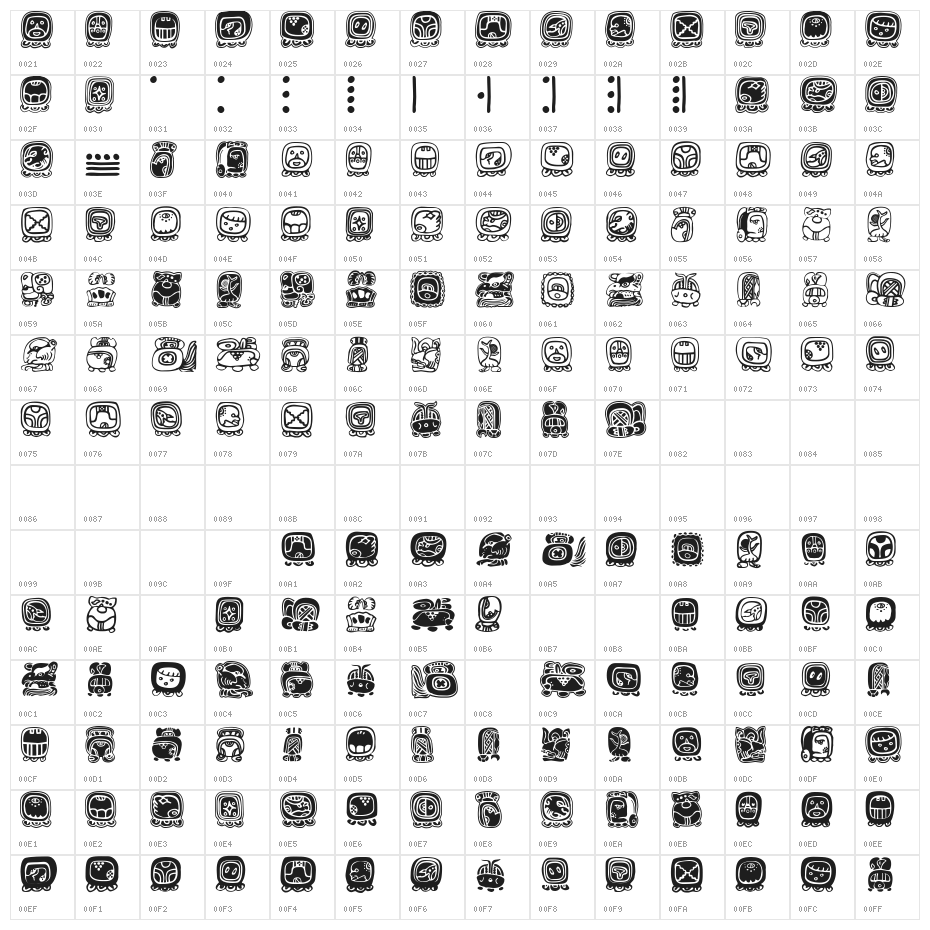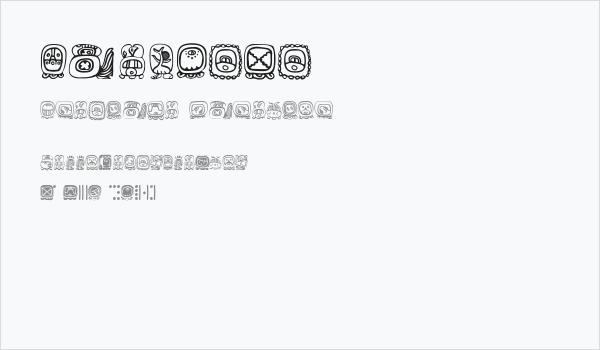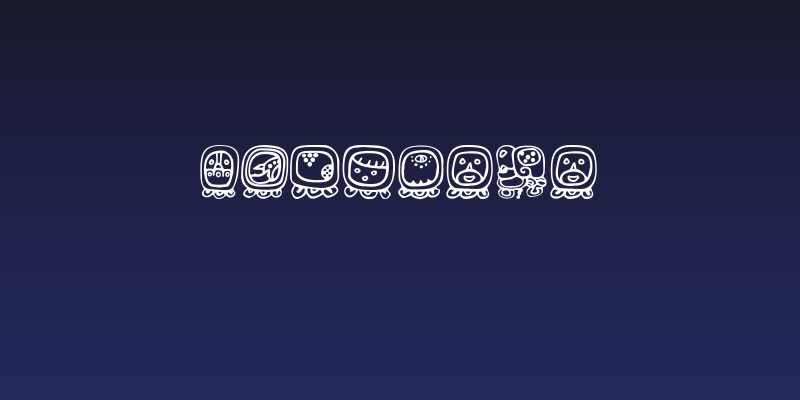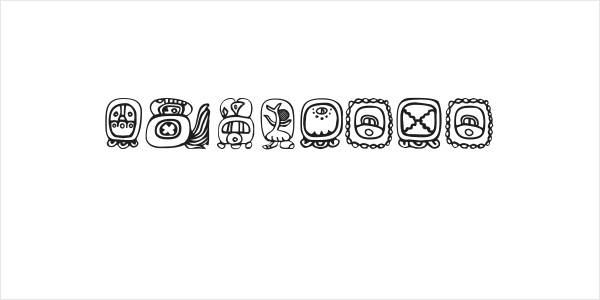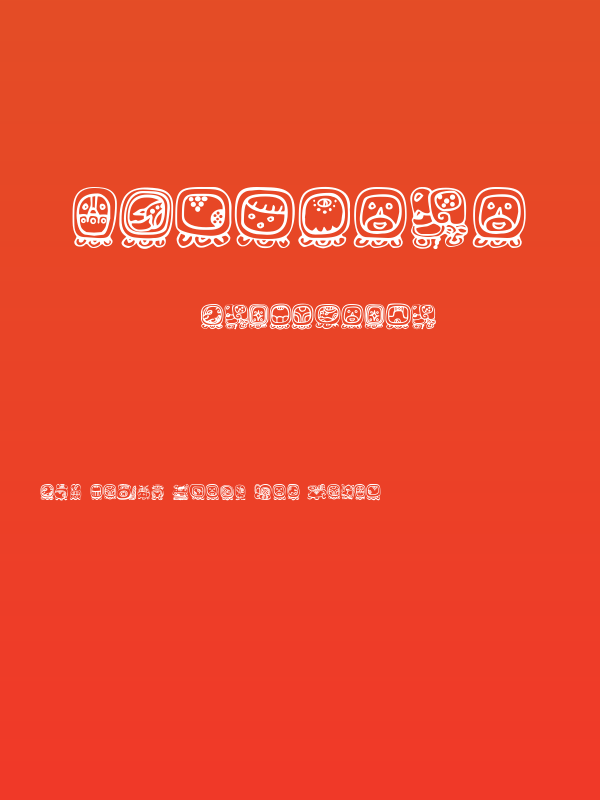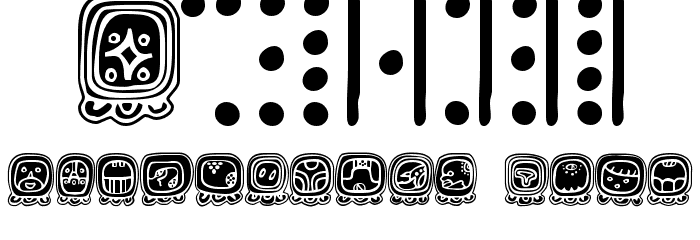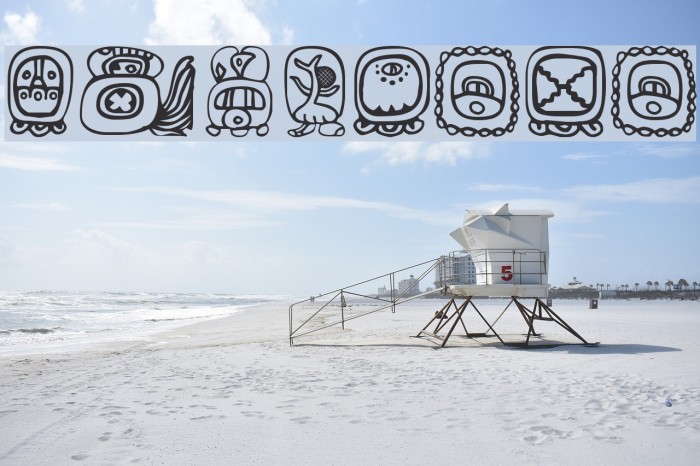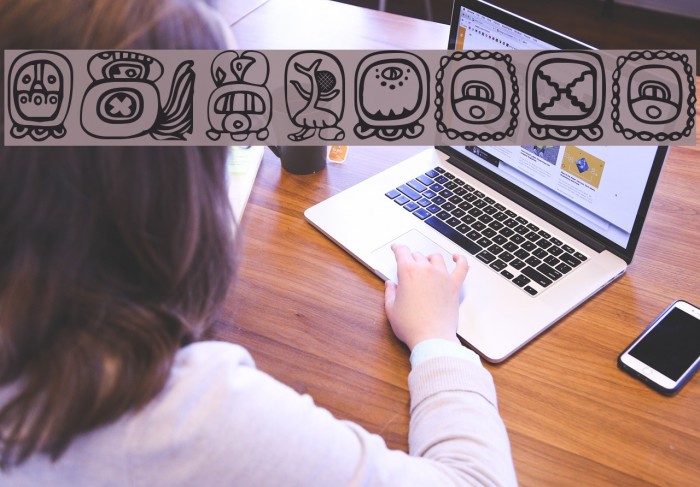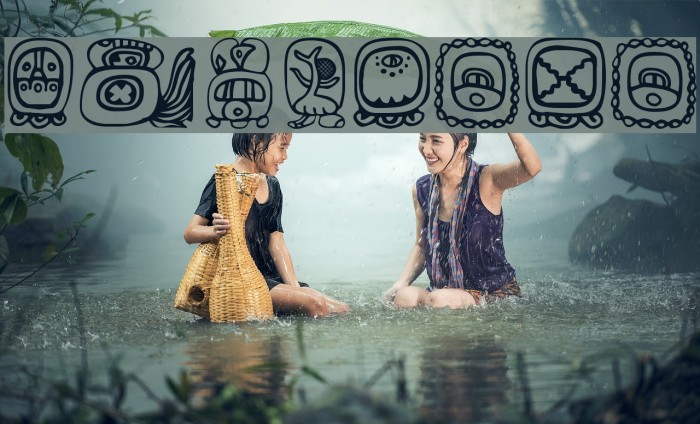
BienMaya Font
| Caso d'uso | Logos, Cultural Exhibitions, Educational Materials |
| Progetti proposti | Ideal for projects related to historical themes, cultural exhibitions, educational materials on ancient civilizations, or artistic endeavors that require a unique and decorative script. |